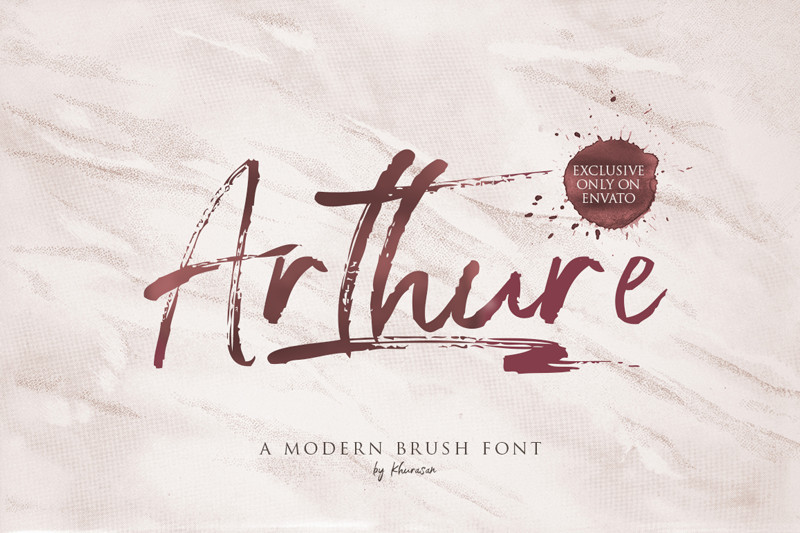
Arthure Brush Font
Introducing Arthure Brush Font. It’s a handwritten brush font, with sharp details. Written with a dry brush pen with fast movement and relaxed. It is design and shared by Khurasan. The Arthure Brush Font is a fresh handwritten font brush, elegant and vintage feel character set. The Arthure font includes a full set capital and lowercase letters, as well as multi-lingual support, currency figures, numerals, & punctuation. Suitable for branding, advertising, headlines, packaging design, and more.